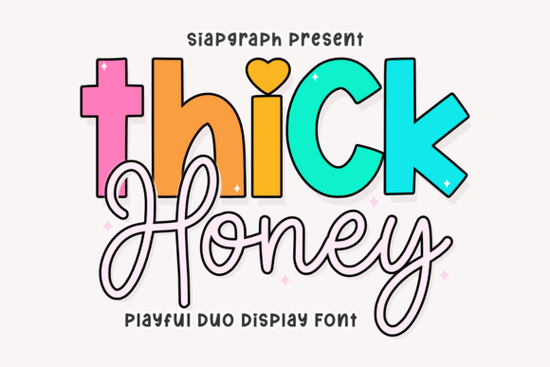
When you're looking for a font that can add both boldness and charm to your designs, the Thick Honey Duo Font is a fantastic choice. This playful and versatile typeface is perfect for anyone who wants to create eye-catching and friendly visuals, whether you're working on children's branding, social media graphics, or custom sticker designs.
Why Choose Thick Honey Duo Font?
The Thick Honey font stands out with its unique combination of a bold, chunky display style and a fluid, hand-drawn script. This dual nature makes it incredibly versatile, allowing you to balance high-impact headers with a soft, approachable touch. The thick, rounded characters of the display version are ideal for grabbing attention, while the elegant script adds a rhythmic grace that feels both modern and welcoming.
Perfect for Children's Branding and More
One of the standout features of the Thick Honey font is its suitability for children's branding. The playful and sweet design elements make it a natural fit for creating logos, merchandise, and other materials that need a "cute" and friendly vibe. Whether you're designing for a children's clothing line or educational materials, this font can help you achieve a visually appealing and engaging look.
Ideal for Social Media Graphics
For those who are active on social media, the Thick Honey font is a great choice for creating upbeat and eye-catching graphics. Its bold and vibrant style can help your posts stand out in a crowded feed. You can use the display version for impactful headlines and the script for more personal, handwritten touches. This combination can make your social media content feel both professional and whimsical.
Creating Dynamic Compositions
By utilizing the unique contrast between the heavy display letters and the delicate script strokes, you can transform simple phrases into dynamic, layered compositions. This versatility is particularly useful for print-on-demand sellers and small businesses looking to create distinctive and memorable designs. Whether you're working on a t-shirt design, a poster, or a promotional flyer, the Thick Honey font can help you achieve a professionally crafted yet wonderfully whimsical look.
Versatile for Various Projects
Beyond children's branding and social media, the Thick Honey font is also perfect for a wide range of creative projects. For instance, it can be used for bakery logos, where a sweet and inviting feel is essential. It's also a great choice for nursery wall art, adding a touch of playfulness and warmth to any room. Additionally, custom sticker designs can benefit from the font's unique and charming style, making them stand out and feel special.
Where to Find the Thick Honey Duo Font
If you're interested in adding the Thick Honey font to your design toolkit, you can find it on Creative Fabrica. This platform offers a wide range of high-quality fonts and design resources, making it a go-to destination for designers, crafters, and creative hobbyists.
Practical Tips for Using the Thick Honey Duo Font
- Experiment with Colors: Try using vibrant, multi-colored palettes to complement the playful and sweet nature of the Thick Honey font.
- Layering Techniques: Combine the bold display version with the fluid script to create dynamic and layered compositions. This can add depth and interest to your designs.
- Test Different Sizes: Play around with different sizes and spacing to see how the font looks in various contexts. This can help you find the best balance for your specific project.
By following these tips and exploring the Thick Honey Duo Font, you can create designs that are both impactful and charming. Whether you're working on a children's brand, social media graphics, or custom stickers, this font is sure to add a delightful and professional touch to your projects.